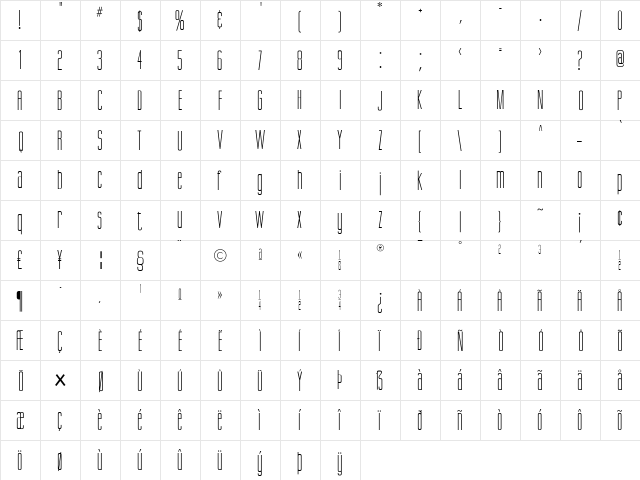
GiottoFLF Regular
Design Context for GiottoFLF Typeface
GiottoFLF offers clean, dependable letterforms without strong stylistic allegiance, making it a practical choice for designers who need flexibility.